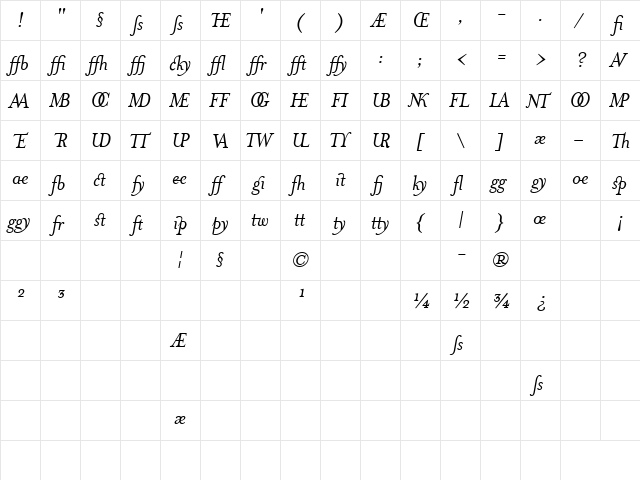
MrsEavesJustLig Italic Font Preview
MrsEavesJustLig Italic
MrsEavesJustLig Italic Font Details
Design Context for MrsEavesJustLig Typeface
MrsEavesJustLig takes a measured approach to typography — its balanced proportions and neutral character make it a reliable workhorse for both digital and print work. The dynamic lean of this cut emphasises speed and emphasis in any layout.